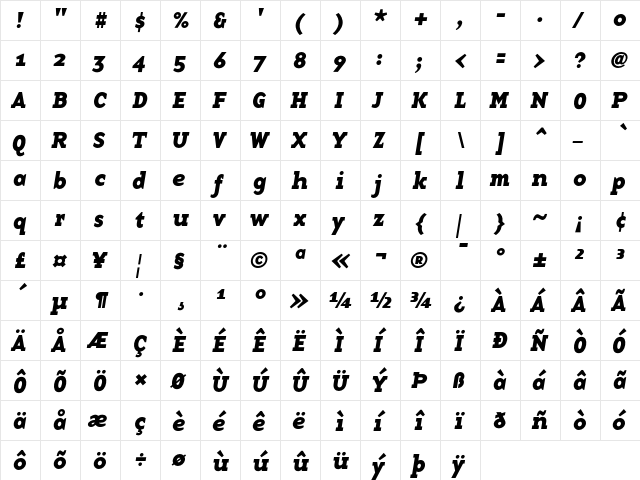
BaseTwelve SerifBI Font Preview
BaseTwelve SerifBI
Design Context for BaseTwelve Typeface
BaseTwelve brings classic typographic sensibility to the table — its serifs and measured letterforms reflect centuries of print heritage.
Pro Tip: Use BaseTwelve for editorial body copy and considered headline work. Pair with a neutral sans for UI elements or captions to create a classic hierarchy.